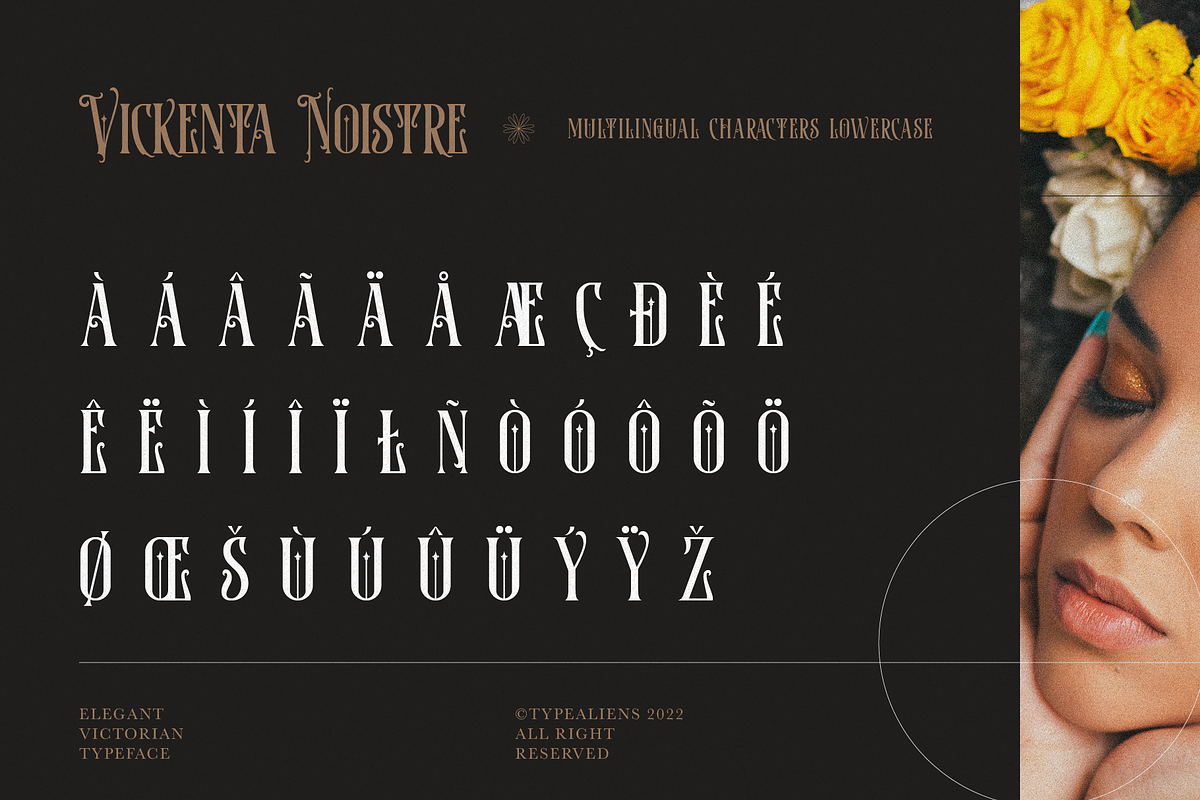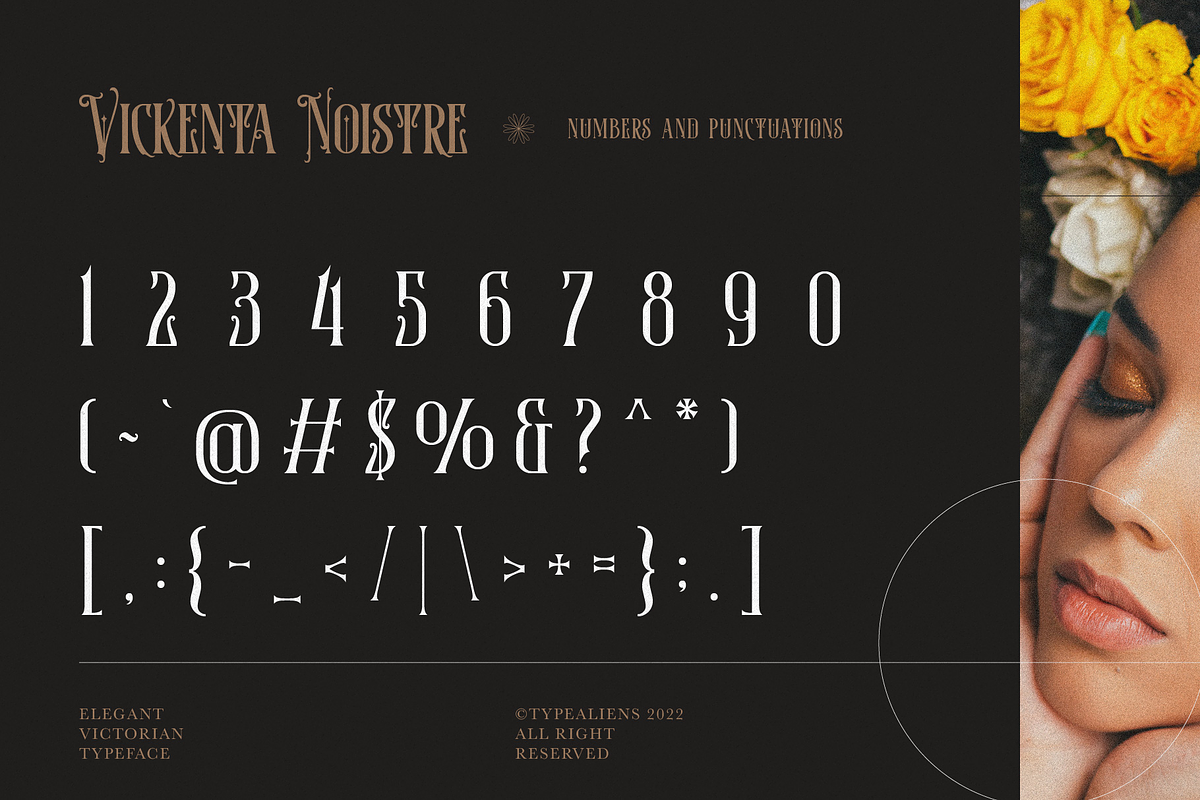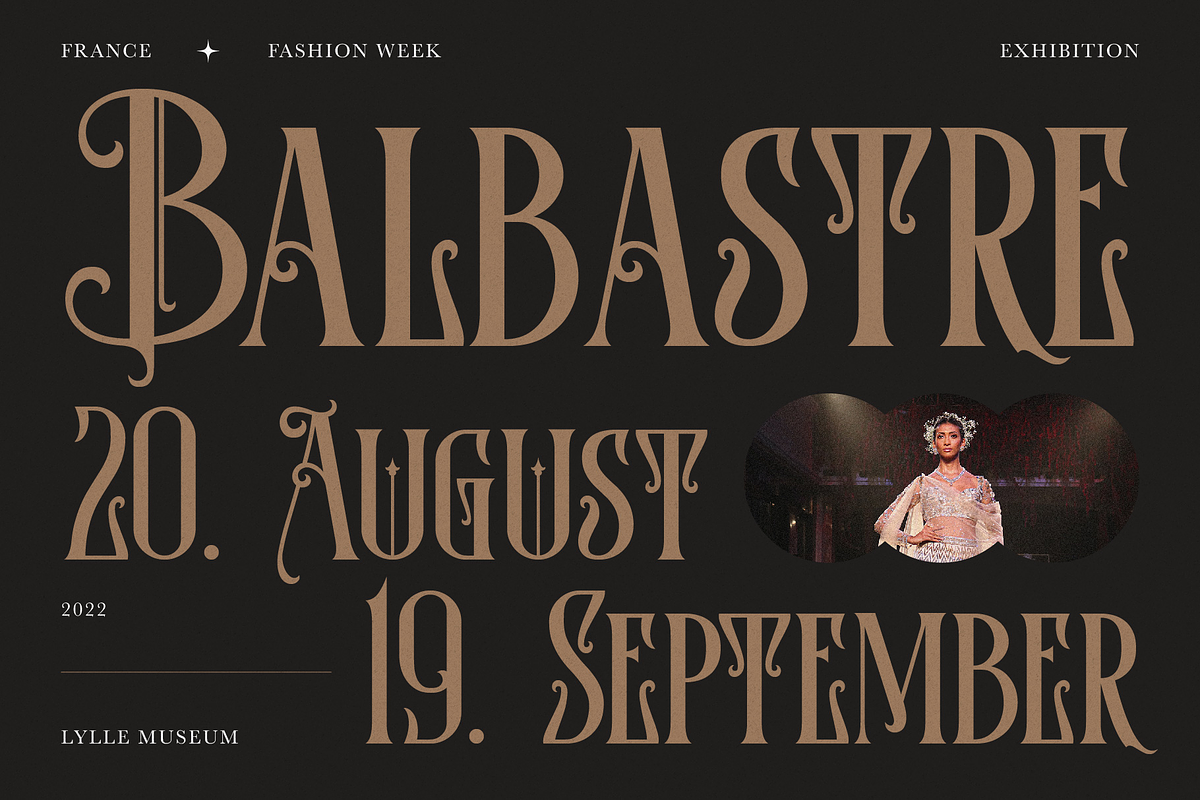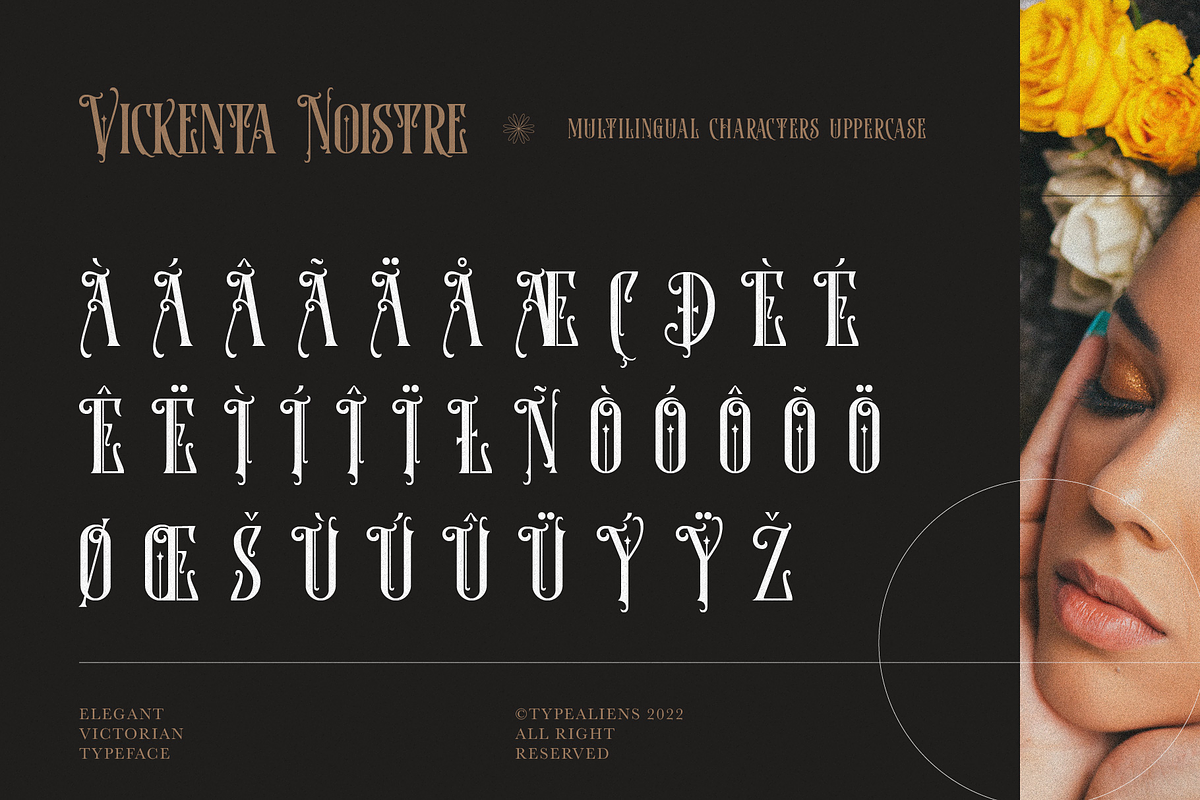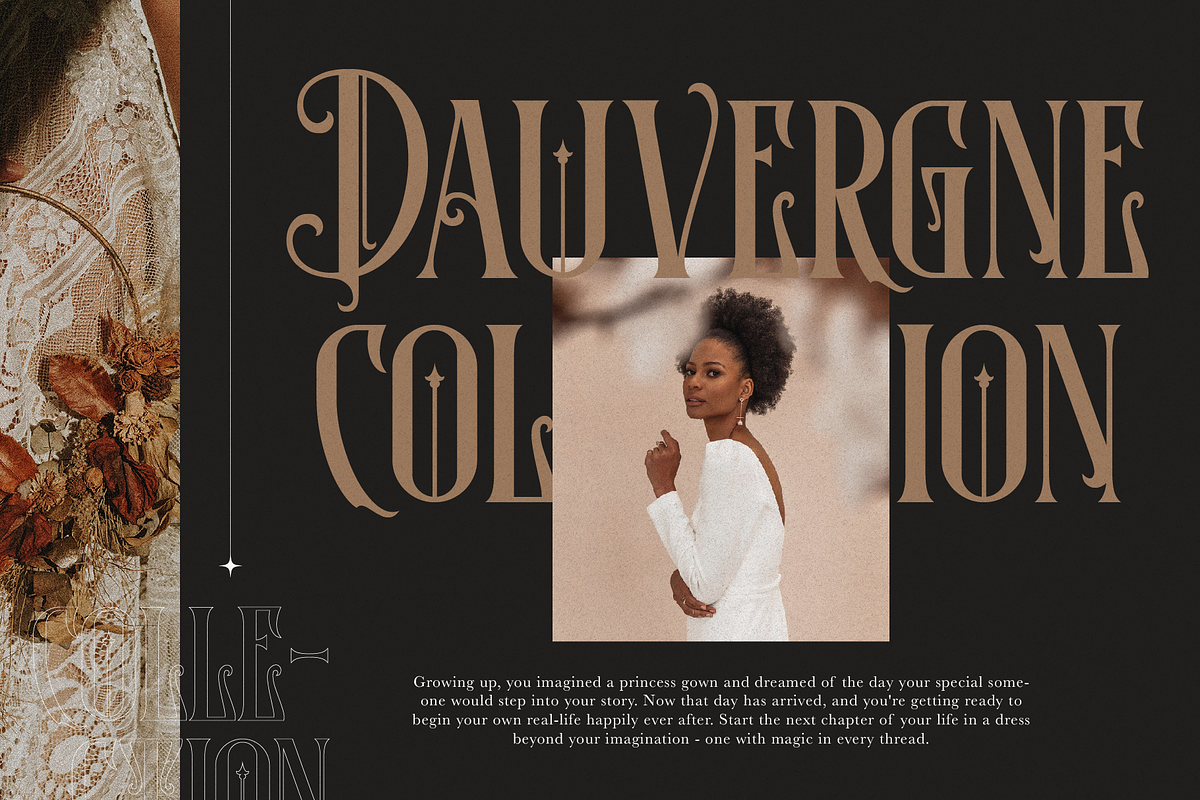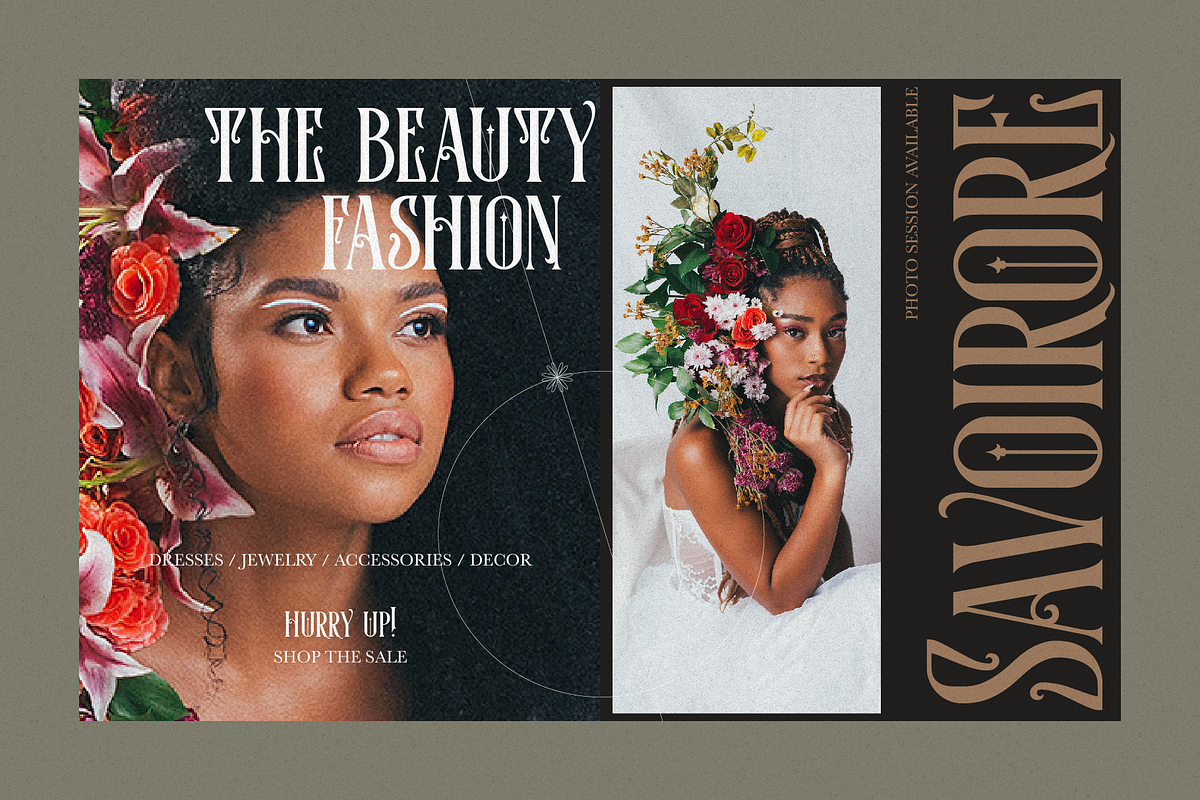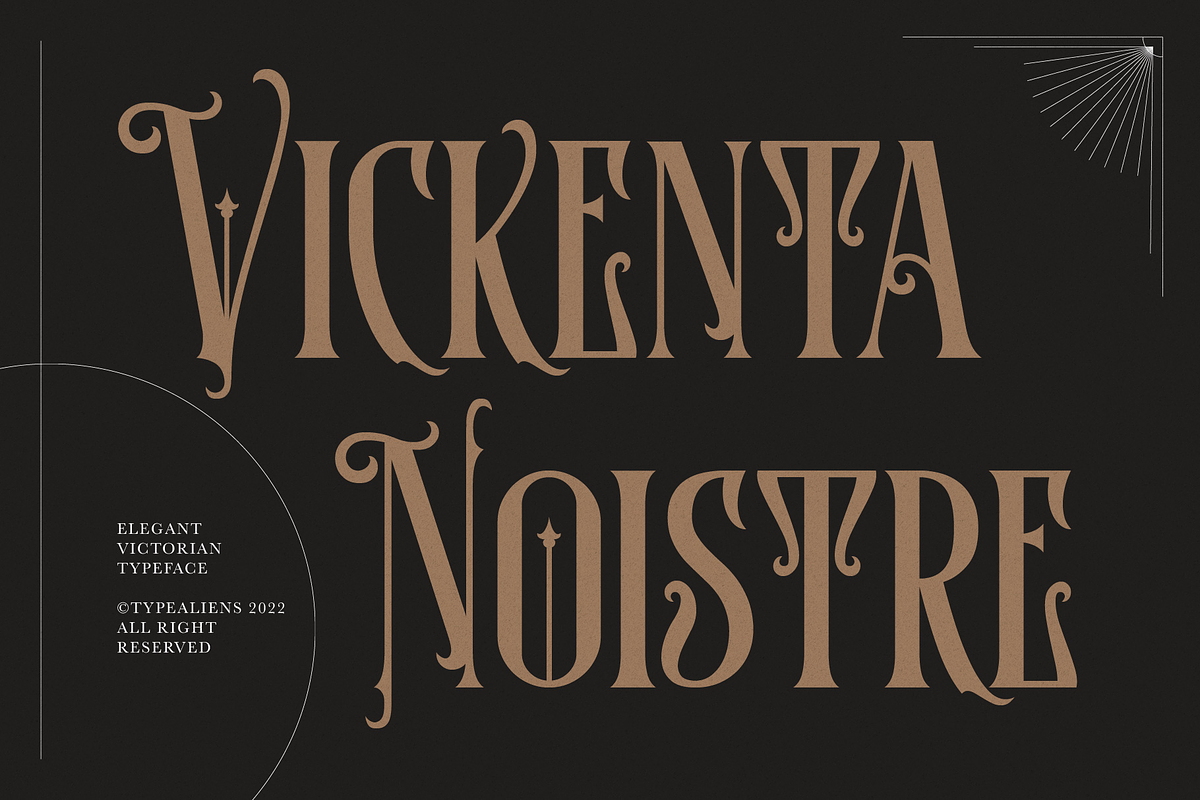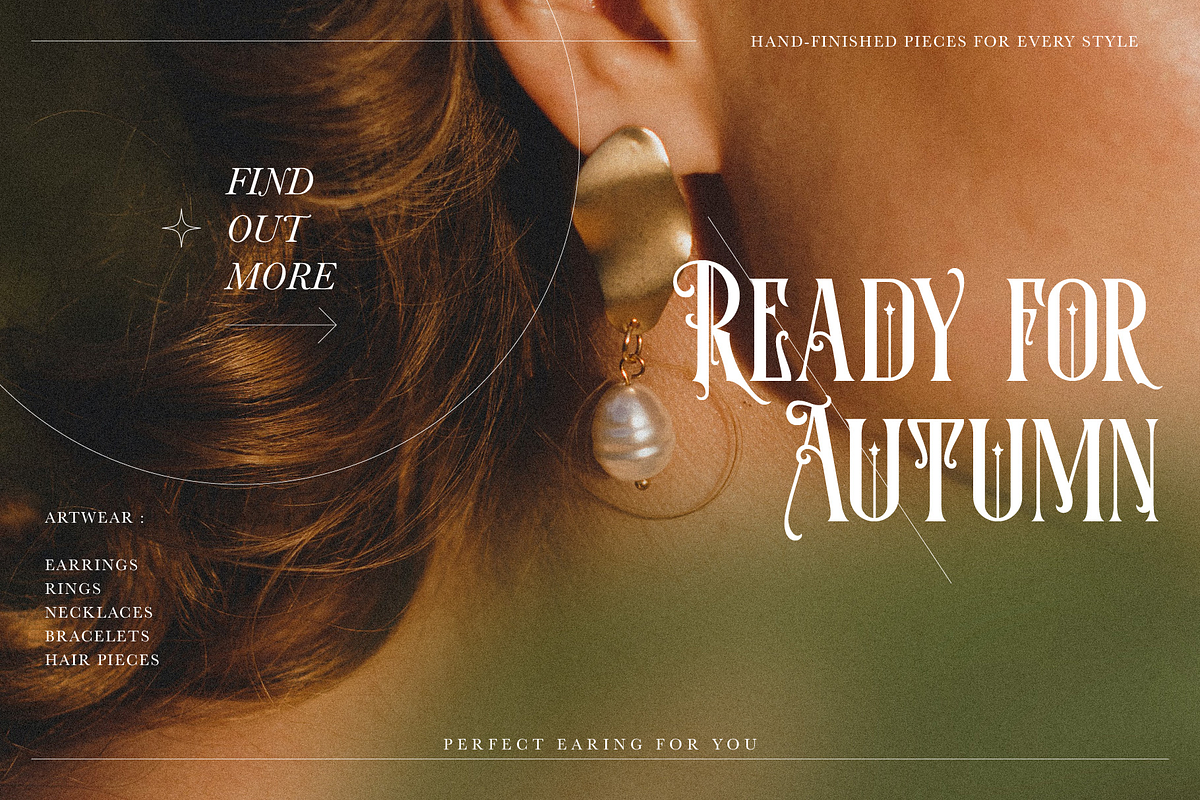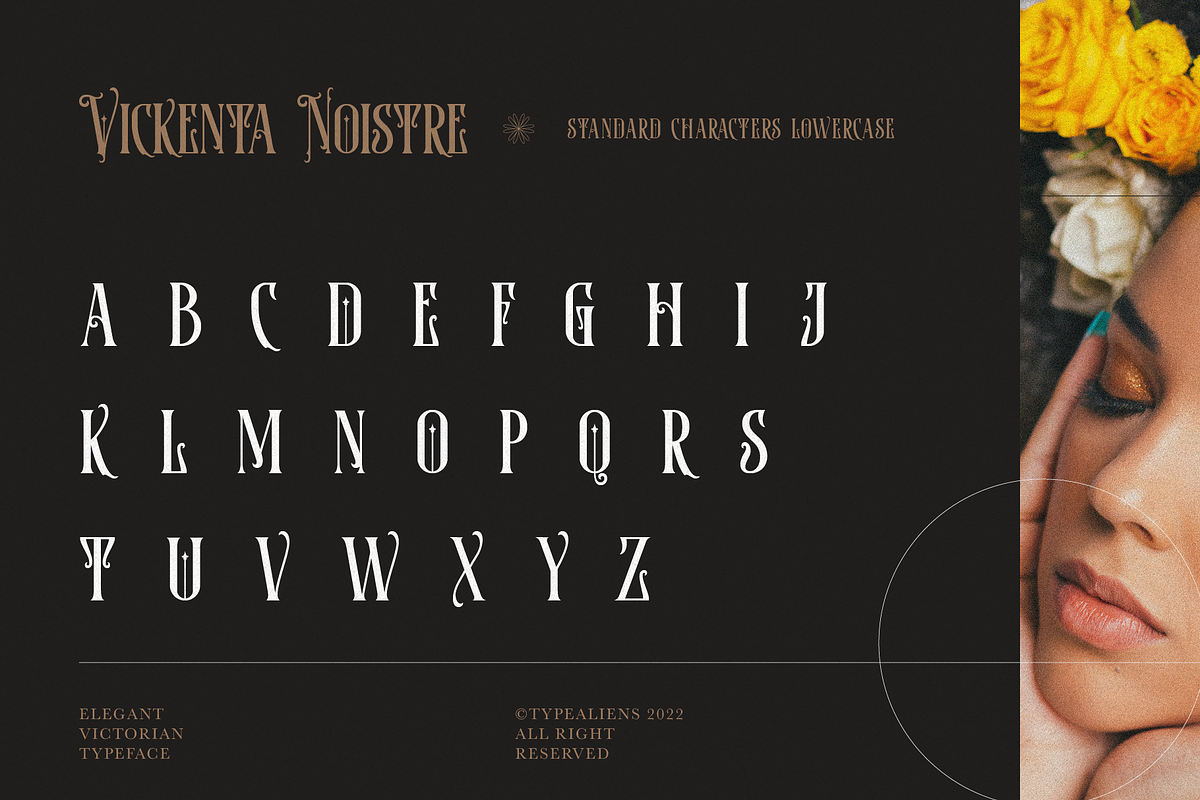
Vickenta Noistre
VICKENTA NOISTRE
Vickenta Noistre is a display/decorative font based on a vintage serif font with modified ornaments that make it look prettier. This font that can be categorized as a Victorian font is classified as creating a vintage and elegant impression, this font is an all caps font so it looks beautiful but strong, suitable for elegant and classic designs such as on liquor labels or designs that are in the direction of art nouveau.
This font is also very suitable for making badges or logos with badge layouts, adding some floral or tribal ornaments will be more interesting.